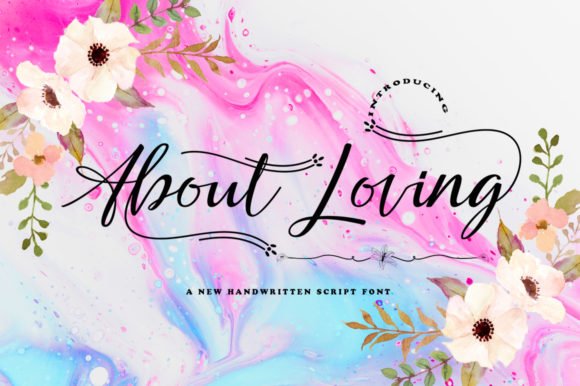
The Authentic Touch: Unveiling About Loving Font
There’s something magical about a design that feels like it’s been written with love. You know, that moment when you’re brainstorming ideas, and suddenly, a spark of creativity hits you – the perfect font, the perfect color palette, the perfect composition. That’s what About Loving Font is all about – capturing the essence of authenticity in every design project.
About Loving Font is a beautifully crafted handwritten font that exudes warmth and personality. Its versatility makes it a valuable addition to any designer’s toolkit, whether you’re working on a branding project, a social media campaign, or a simple blog post. With About Loving Font, you can add a unique touch to your designs, making them stand out from the crowd.
About Loving Font
- Unique Characteristics: Loving Font features a distinctive, hand-drawn design with elegant lines and subtle flair, making it perfect for creating visually appealing and romantic typography.
About Loving Font Review
As a designer, I’ve had the chance to work with “About Loving Font” in a recent project. Here’s my honest take on this font.
- Unique and playful character set: The font has a distinct personality that adds a touch of whimsy to any design project.
- Good legibility: Despite its playful nature, the font remains readable at various font sizes and line lengths.
- Works well for headings and titles: The font’s bold and eye-catching qualities make it perfect for grabbing attention.
- Limited language support: The font may not support all languages, which could be a concern for international projects.
- Not ideal for body text: While the font is great for headings, it may not be the best choice for large blocks of text due to its playful nature.
About Loving Font is a great choice for designers looking to add a touch of personality to their projects. While it may have some limitations, its unique character set and good legibility make it a great option for headings and titles. I would definitely consider using it again in the future.
Tips for Getting the Most Out of About Loving Font
Use About Loving Font in combination with other design elements to create a visually appealing design.
Experiment with different font sizes, colors, and styles to find the perfect look for your project.
Use About Loving Font in a variety of contexts, such as headings, subheadings, and body text.
Use About Loving Font for:
Headings and titles
Body text and paragraphs
Labels and captions
Any project that requires a clean and modern font